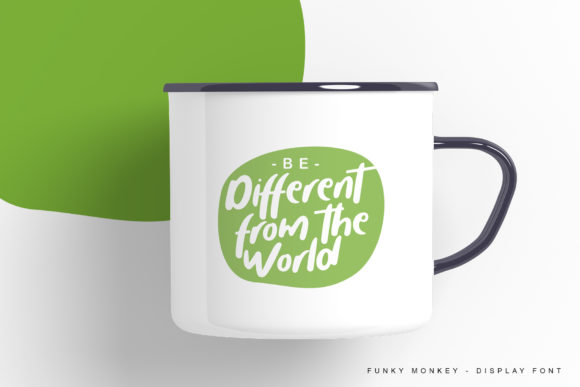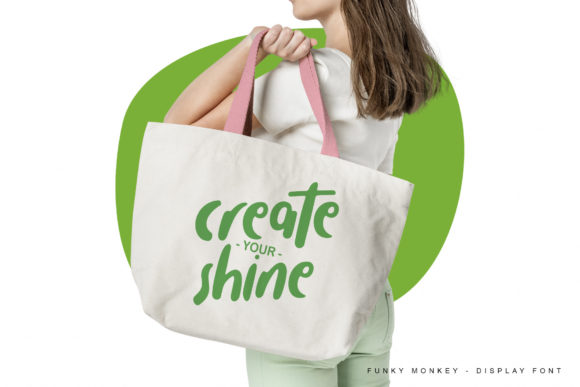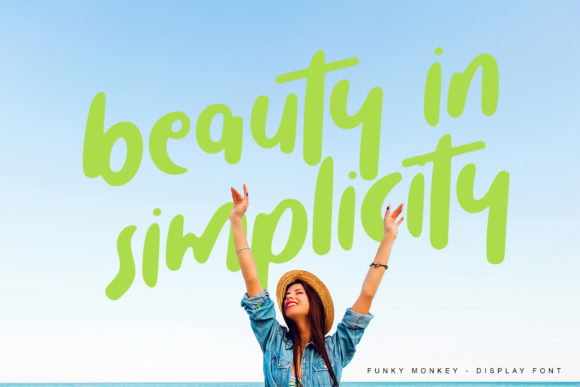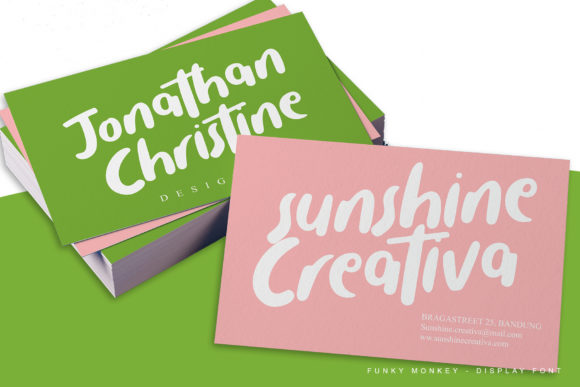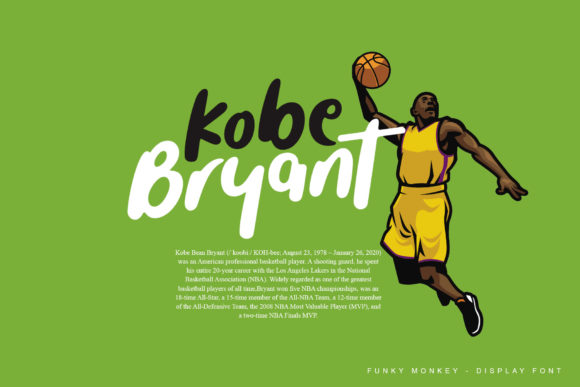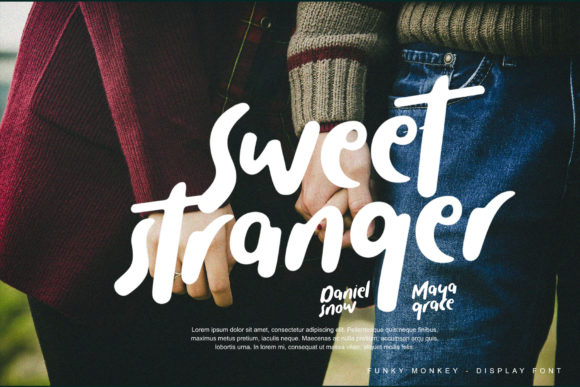
Get Ready to Go Bananas with the Funky Monkey Font
Who hasn’t had that moment when a creative idea suddenly strikes and you can’t wait to bring it to life? The excitement is palpable, and the possibilities seem endless. That’s exactly what happened to designers when they discovered the Funky Monkey Font – a casual and friendly display font that’s perfect for adding a relaxed touch to any creation.
The Funky Monkey Font is designed to be approachable and inviting, making it a go-to choice for designers who want to add a playful vibe to their projects. With its informal style, this font is sure to bring a smile to the faces of your audience. And, as a valuable asset for designers, the Funky Monkey Font offers a unique way to express yourself and connect with your viewers on a deeper level.
Funky Monkey Font Key Features
- Font Family: Funky Monkey Font is a unique, hand-drawn font designed to add a touch of playfulness to any design.
- Character Count: The font includes over 200 characters, including uppercase and lowercase letters, numbers, and punctuation marks.
- Unique Characteristics: The font’s distinctive, hand-drawn style and varied line widths give it a lively, energetic feel that is perfect for adding visual interest to designs.
Funky Monkey Font Review
I recently had the chance to work with the Funky Monkey Font, and I have to say, it’s a mixed bag. Let’s dive into what works well and what doesn’t.
- The font is super fun and playful, perfect for a project that needs a lighthearted vibe.
- The bold and italic variations are well-designed and add a lot of character to the font.
- The font is highly customizable, with a wide range of style and size options.
- The font can be a bit overwhelming when used in large blocks of text, making it hard to read.
- The font family is not very extensive, which can limit its use in certain projects.
- The font’s functionality could be improved with better support for languages other than English.
Overall, I think the Funky Monkey Font is a great choice for projects that need a fun and playful touch. However, it may not be the best choice for projects that require a more serious or professional tone. With a bit more development, I think this font has a lot of potential.
Getting the Most Out of the Funky Monkey Font
For the best results, use the Funky Monkey Font for titles and headings. This font is best suited for bold and playful text.
Combine the Funky Monkey Font with other fonts for a unique and eye-catching design.
The Funky Monkey Font is ideal for:
1. Creative projects, such as posters, flyers, and social media graphics.
2. Branding and marketing materials, such as logos and business cards.
3. Web design and development projects, such as website headers and footers.
Alternatives to Funky Monkey Font for Designers
Great Vibes Font is a beautiful, handwritten script font perfect for creating a fun and lively atmosphere. It’s ideal for headings, titles, and quotes in designs that require a touch of whimsy and playfulness. Great Vibes Font is more elegant and refined compared to Funky Monkey Font, making it suitable for a wider range of design projects.
Dancing Script Font is a dynamic and energetic script font that’s perfect for adding a touch of sophistication and glamour to designs. It’s ideal for headings, titles, and quotes in luxury and high-end designs. While Funky Monkey Font is more playful and childlike, Dancing Script Font is more mature and refined, making it suitable for a more upscale audience.
What is the character set for Funky Monkey Font?
The Funky Monkey Font includes a comprehensive character set that supports a wide range of languages, including Latin, Greek, and Cyrillic. It also includes a range of punctuation marks, numerals, and symbols. The font is designed to be highly legible and versatile, making it suitable for a variety of design applications.